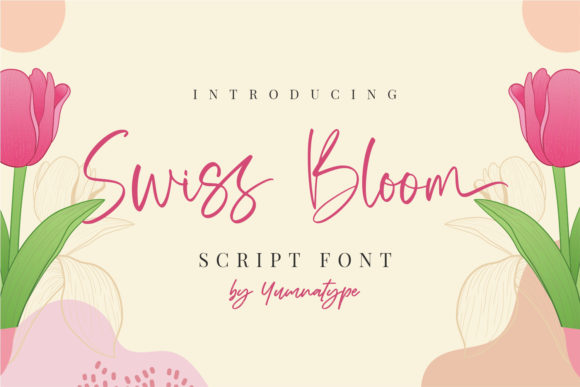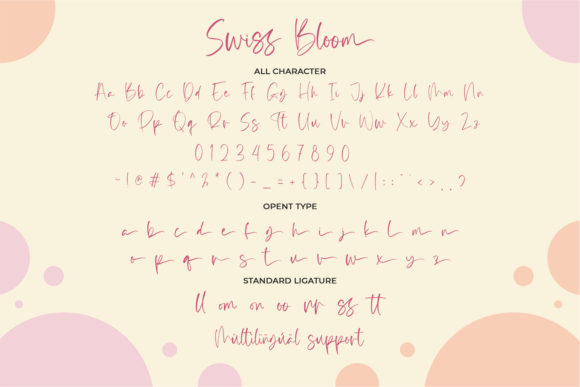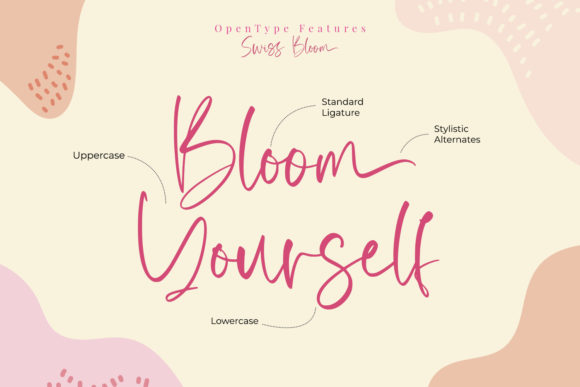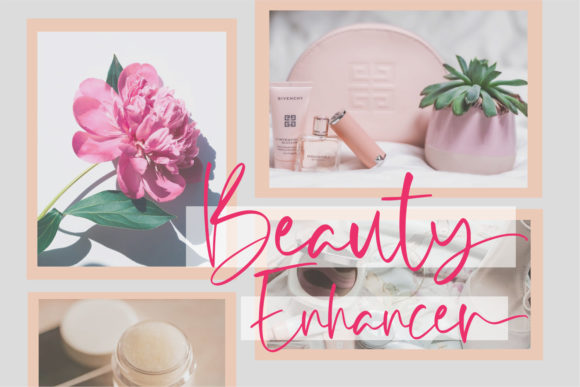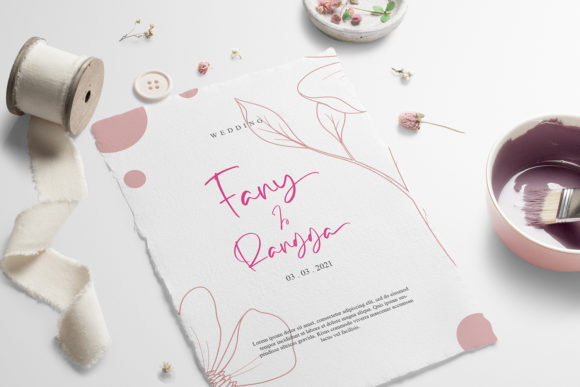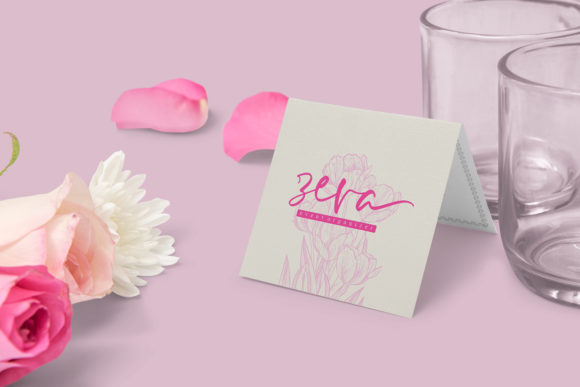
About Swiss Bloom Font
Swiss Bloom is a elegant handwritten font. Elegant and dreamy, this font is incredibly adept for each of your favorite designs.